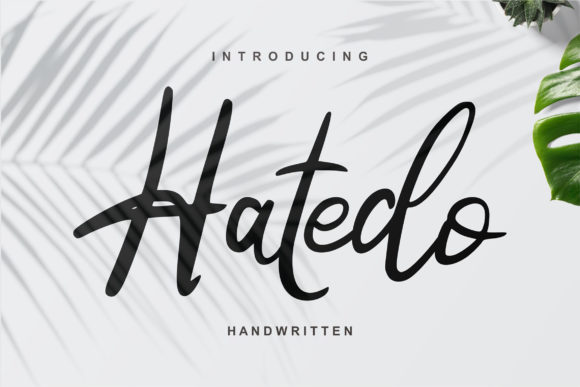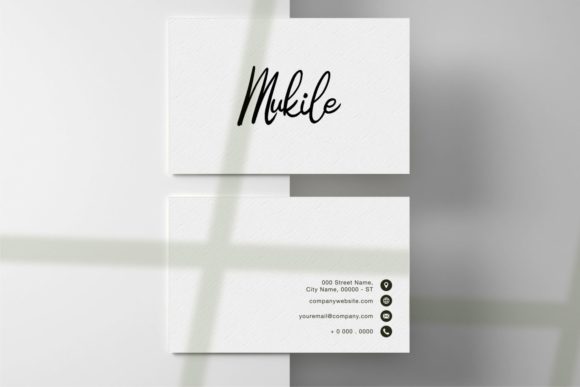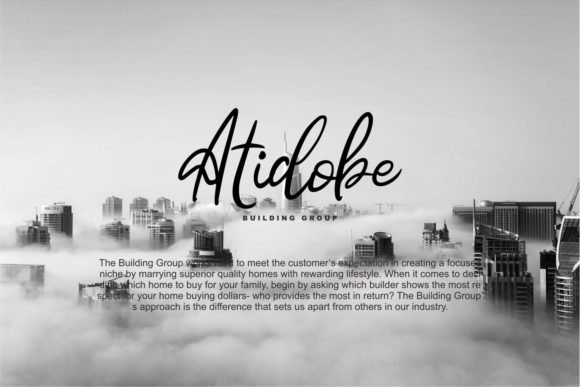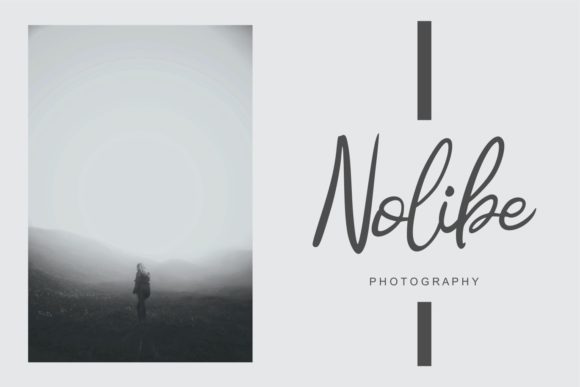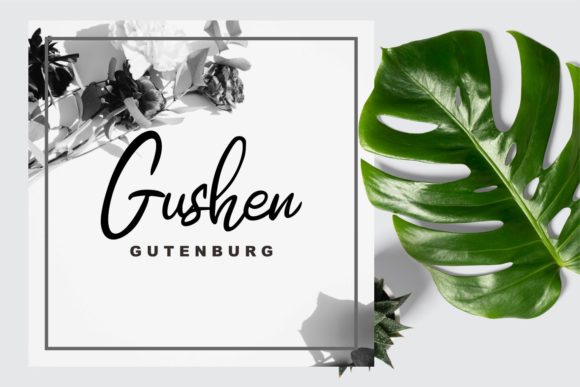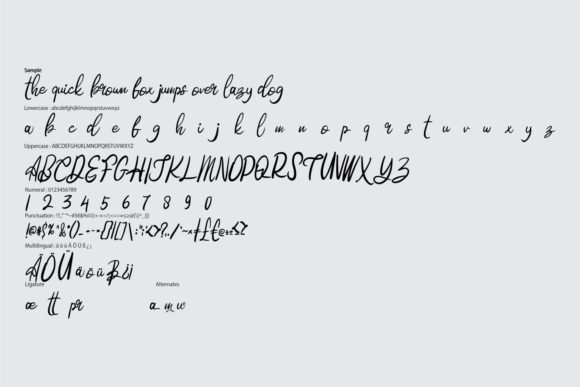
Hatedo Font
About Hatedo Font
Hatedo simplifies elegance into one truly outstanding script font. It maintains its classy calligraphic influences while feeling contemporary and fresh.